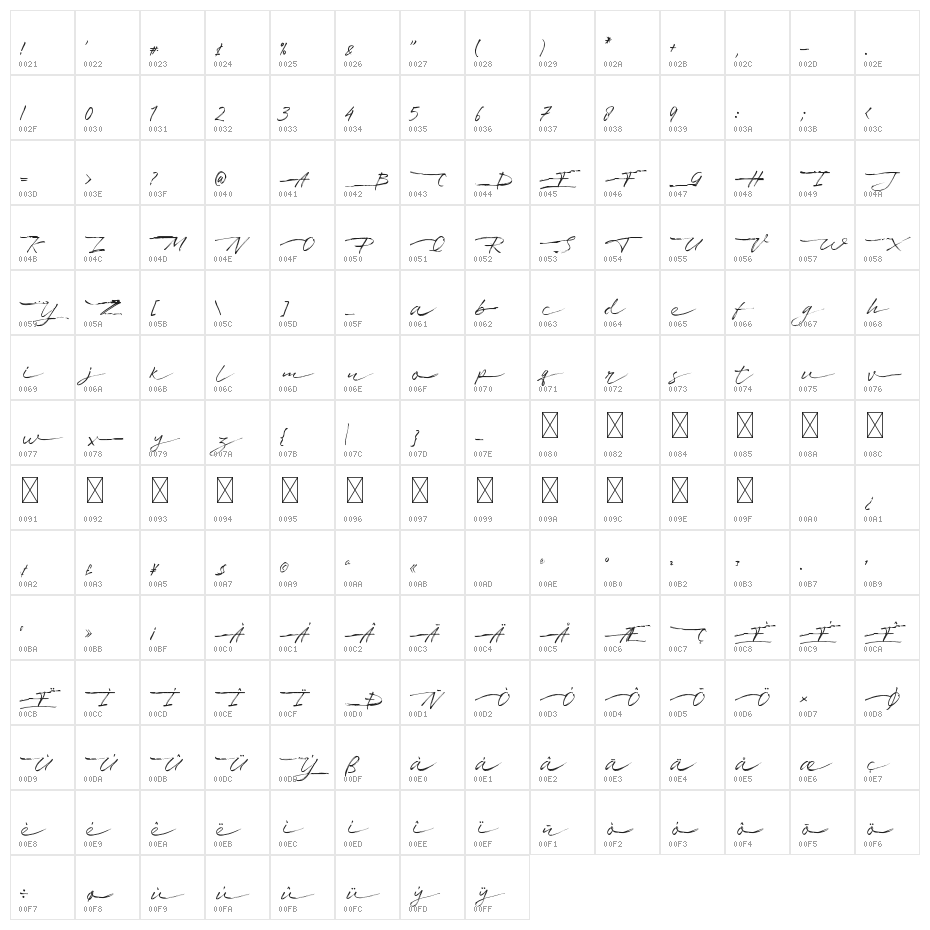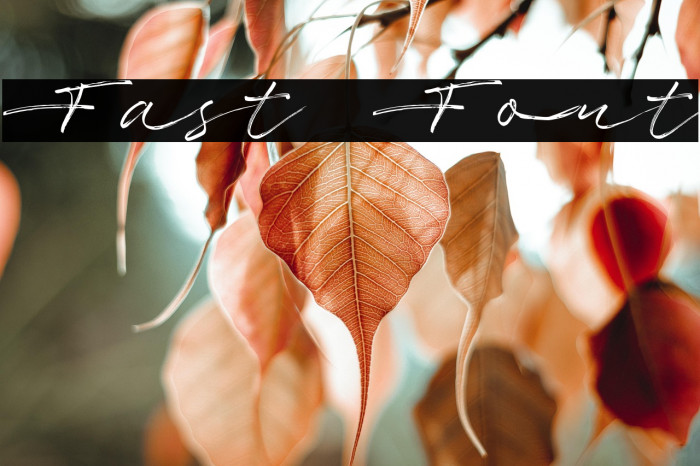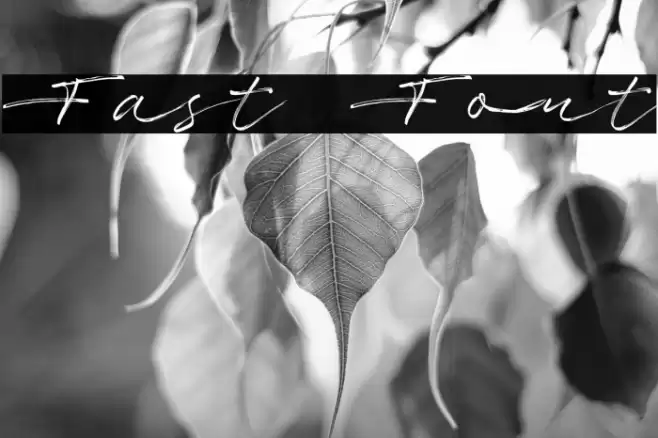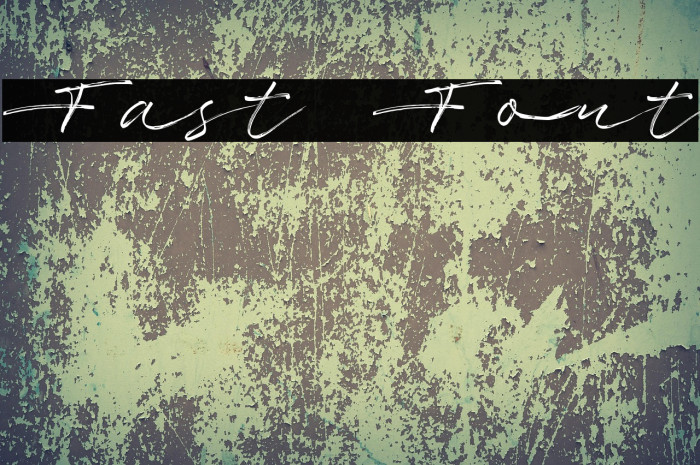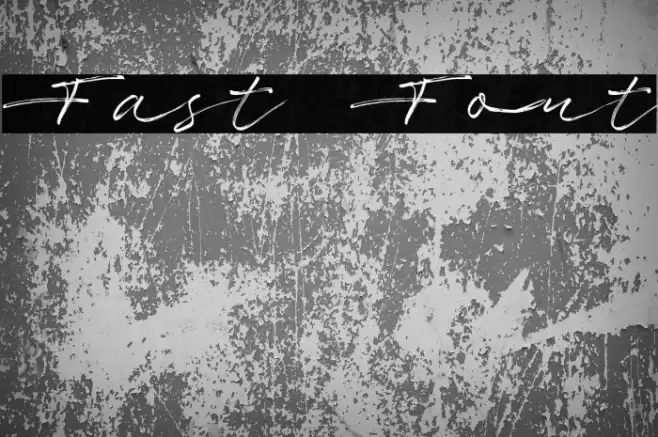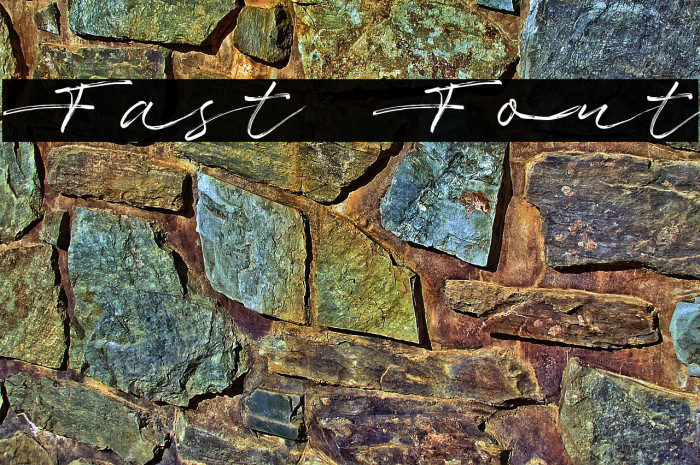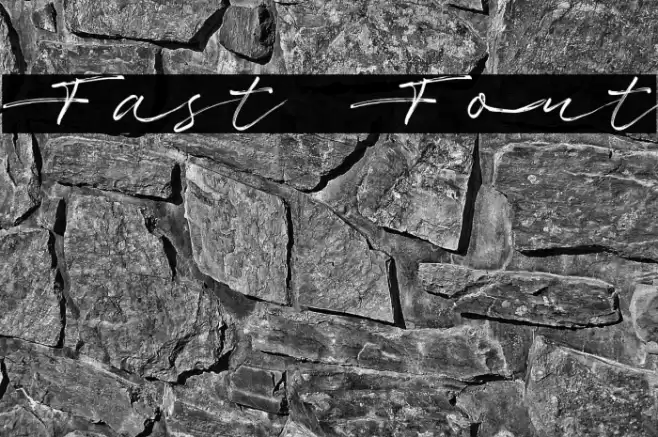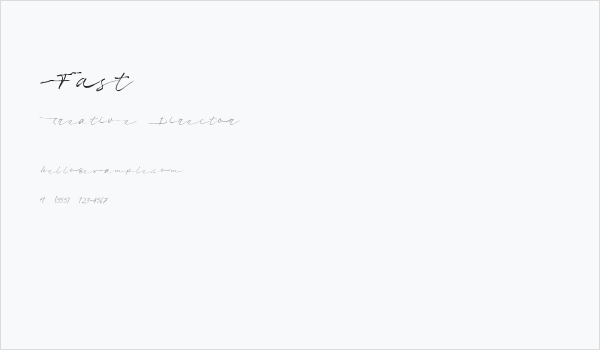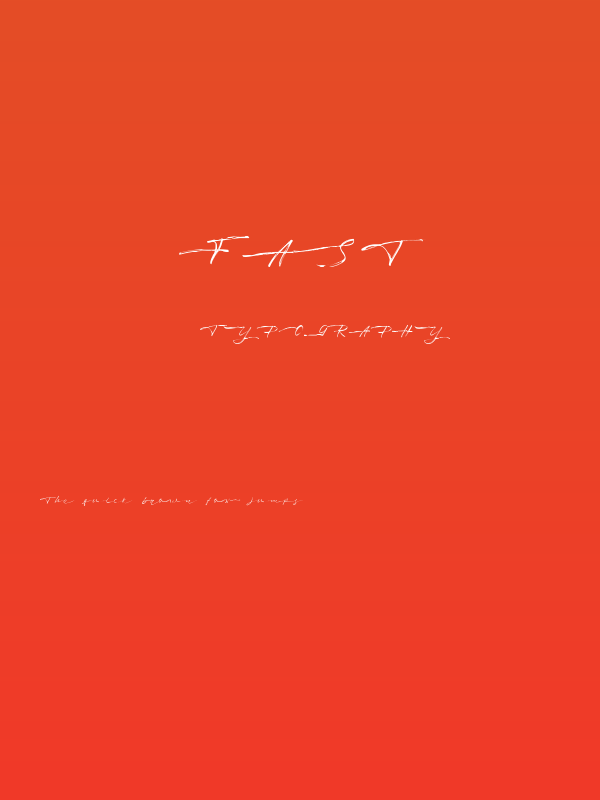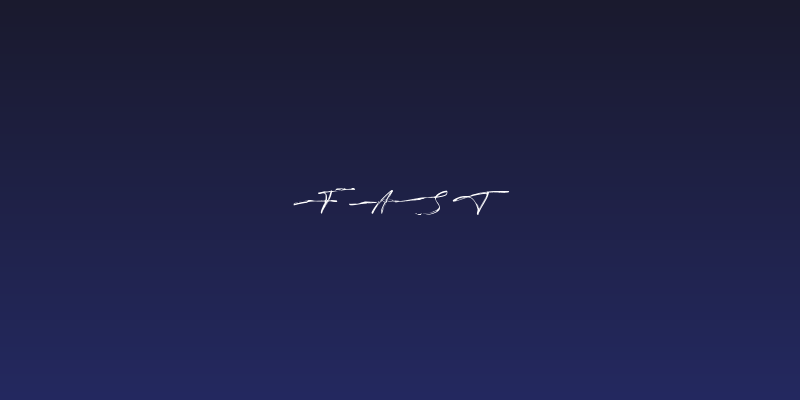
Fast Font
Fast Description
This elegant script font features a fluid, handwritten style with a natural flow and graceful curves. The uppercase letters are slightly more elaborate, with decorative flourishes that add a touch of sophistication. The lowercase letters maintain a consistent slant, enhancing the overall sense of movement and dynamism. The numerals are distinct yet harmonize well with the alphabet, while the special characters retain the same fluidity, making them ideal for creative projects. The font's delicate lines and smooth transitions between strokes give it a refined and artistic appearance.
| Overall Style | Elegant, Artistic |
| Proposed Projects | Ideal for wedding invitations, greeting cards, branding, and elegant logo designs. |